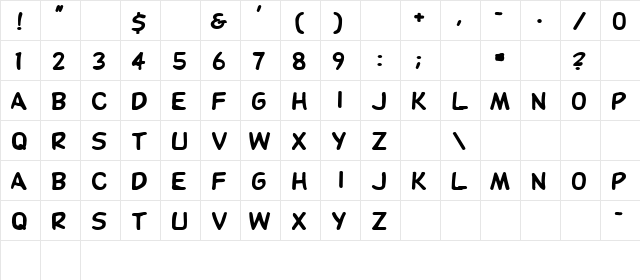
DupuyBALloon-Bold Bold Font Preview
DupuyBALloon-Bold Bold
DupuyBALloon-Bold Bold Font Details
Design Context for DupuyBALloon-Bold Typeface
DupuyBALloon-Bold offers clean, dependable letterforms without strong stylistic allegiance, making it a practical choice for designers who need flexibility. The heavy weight commands attention and anchors typographic hierarchies.